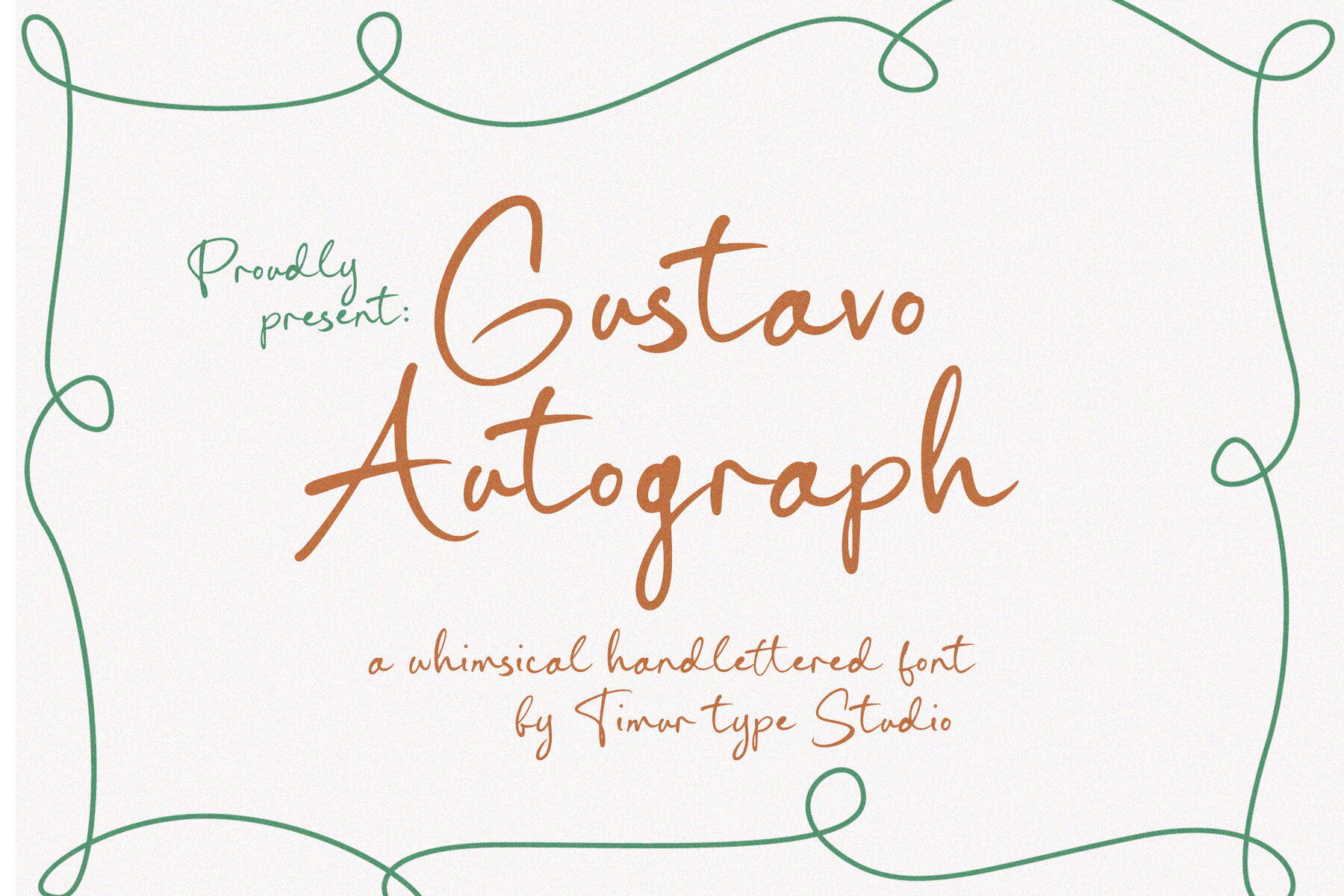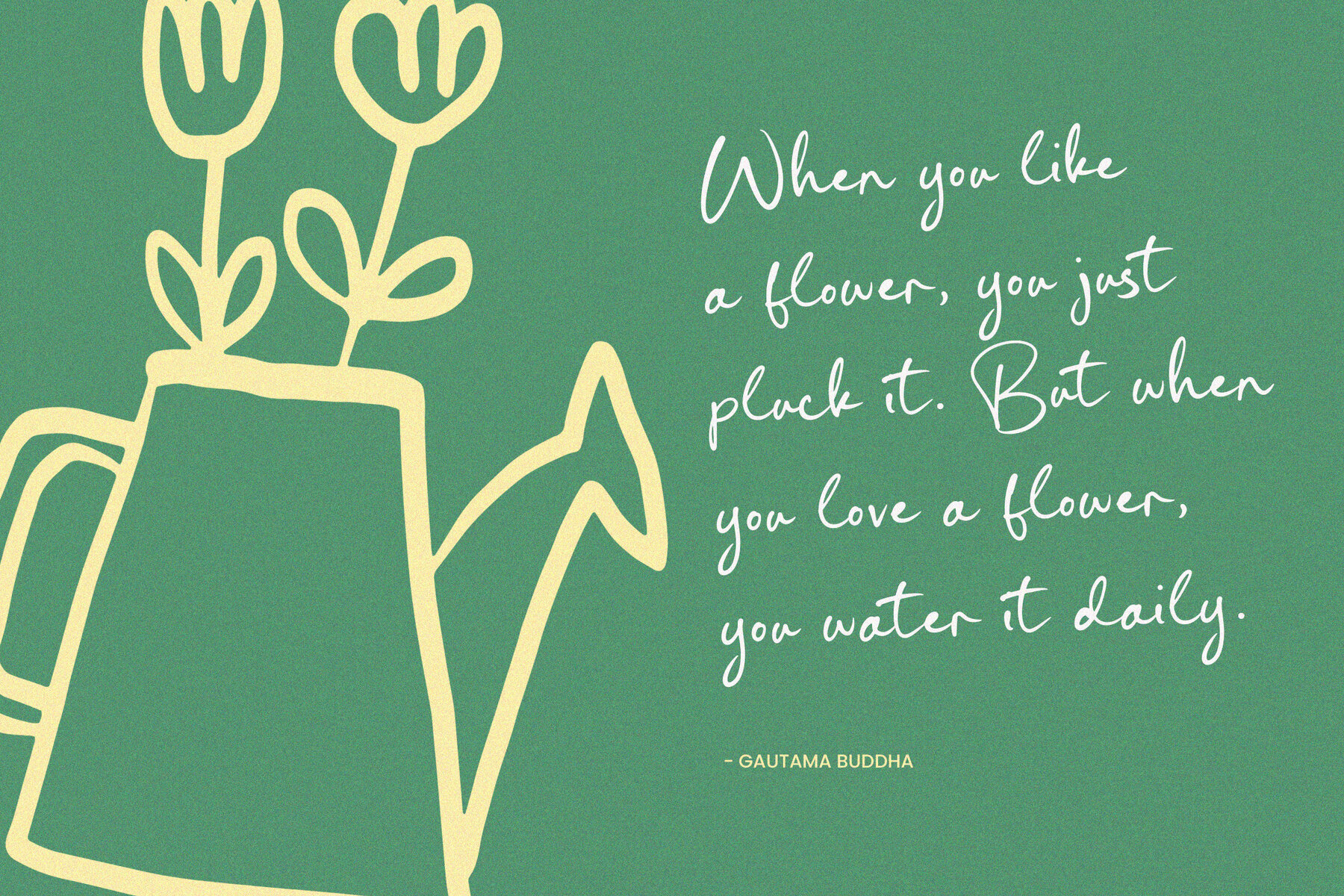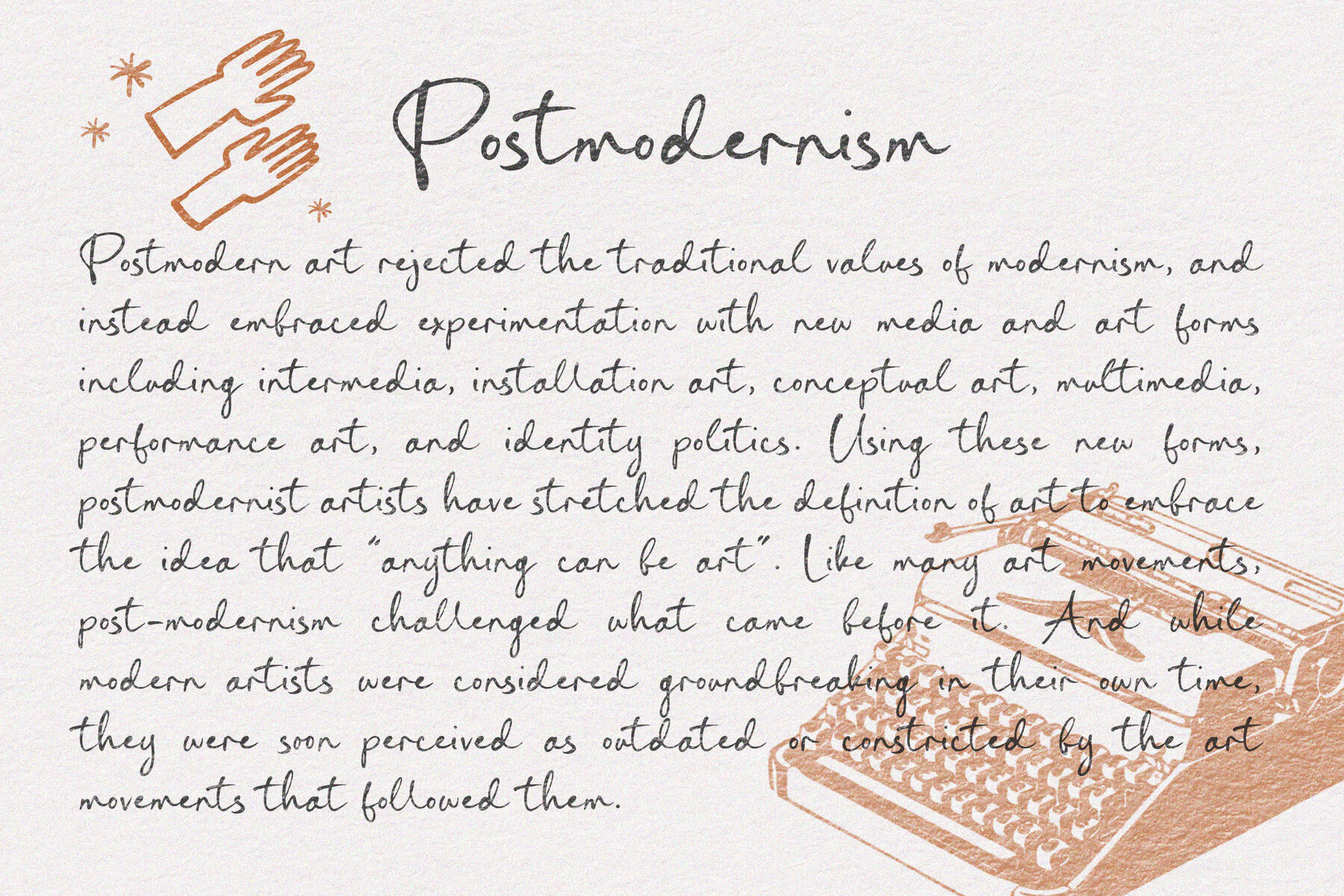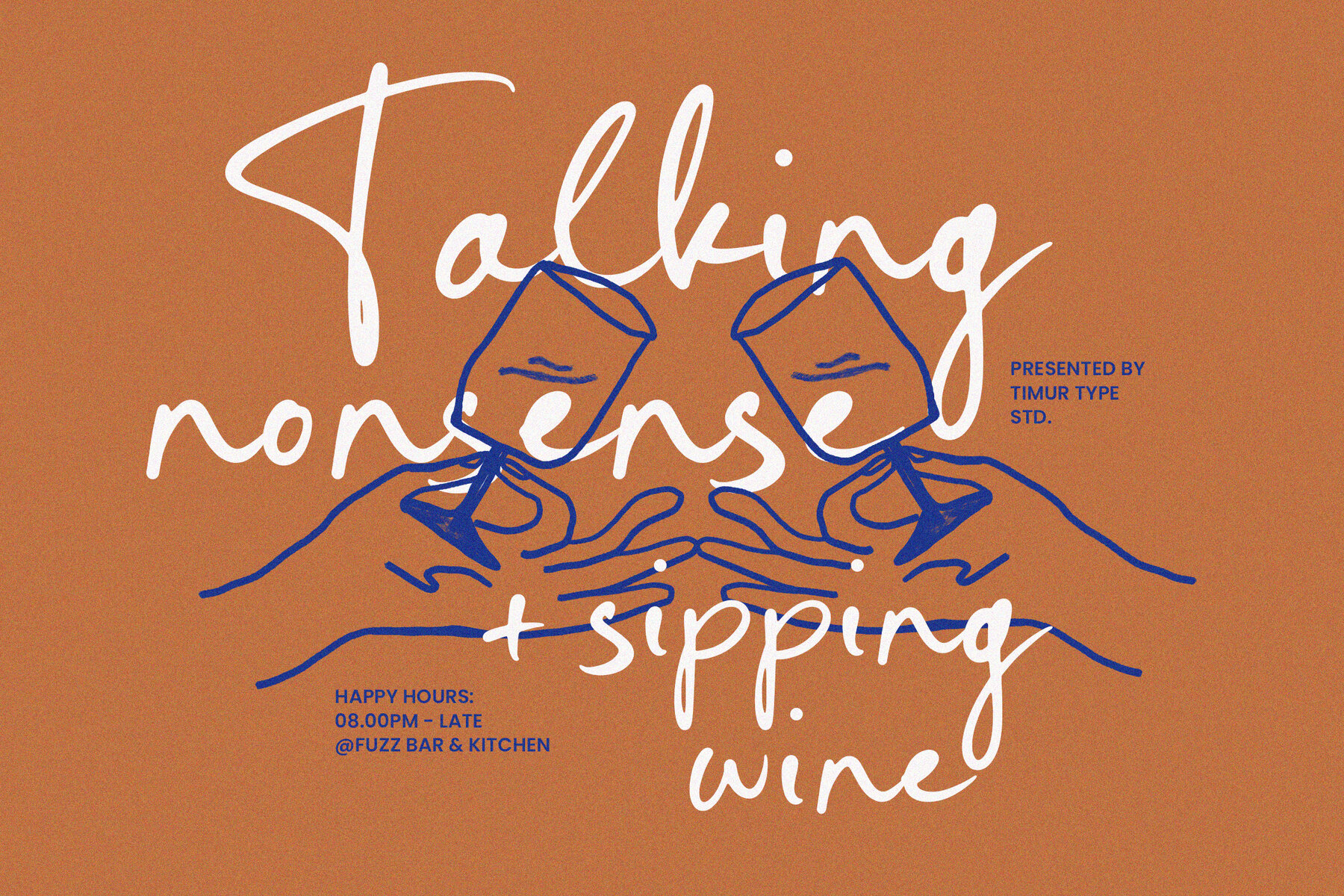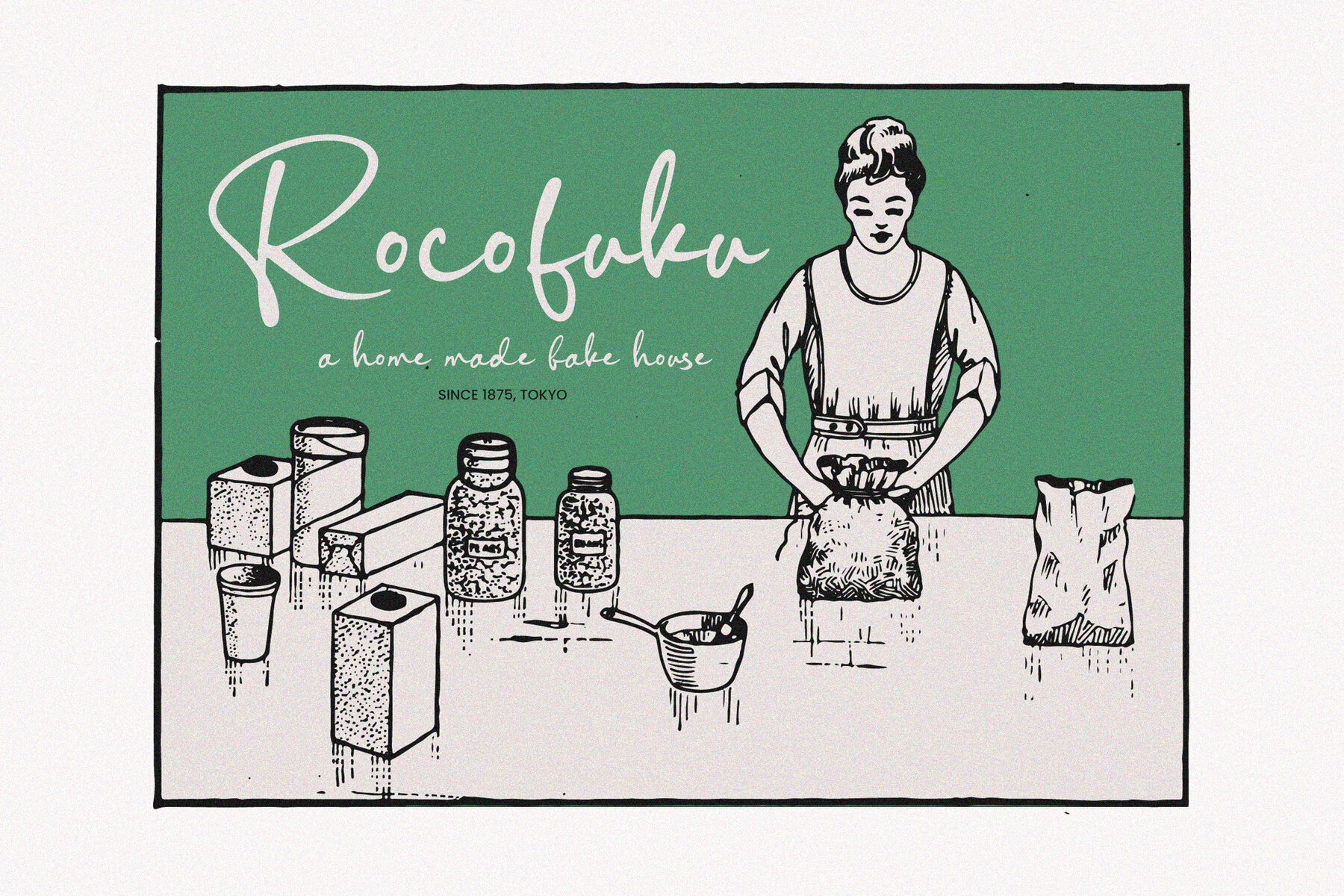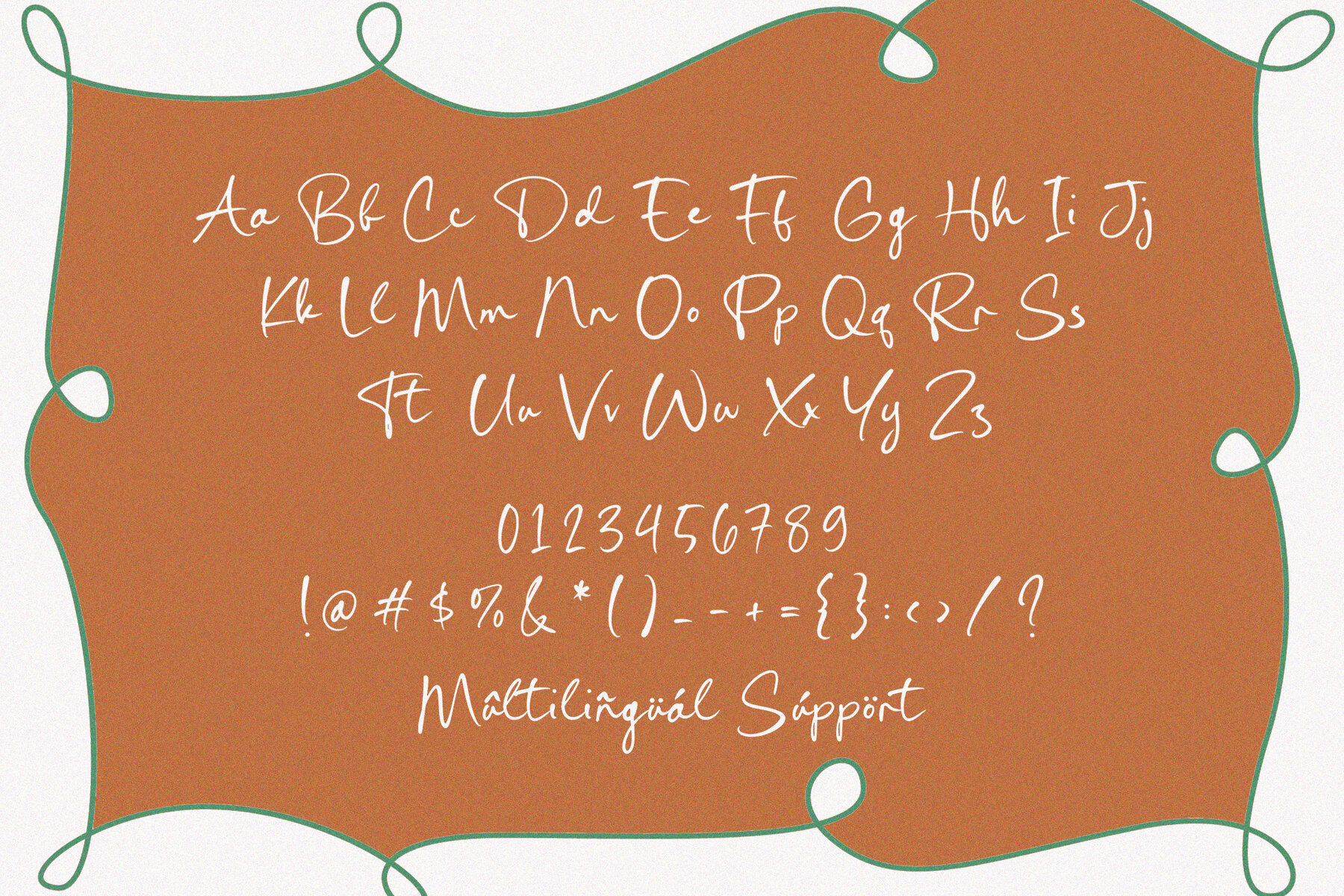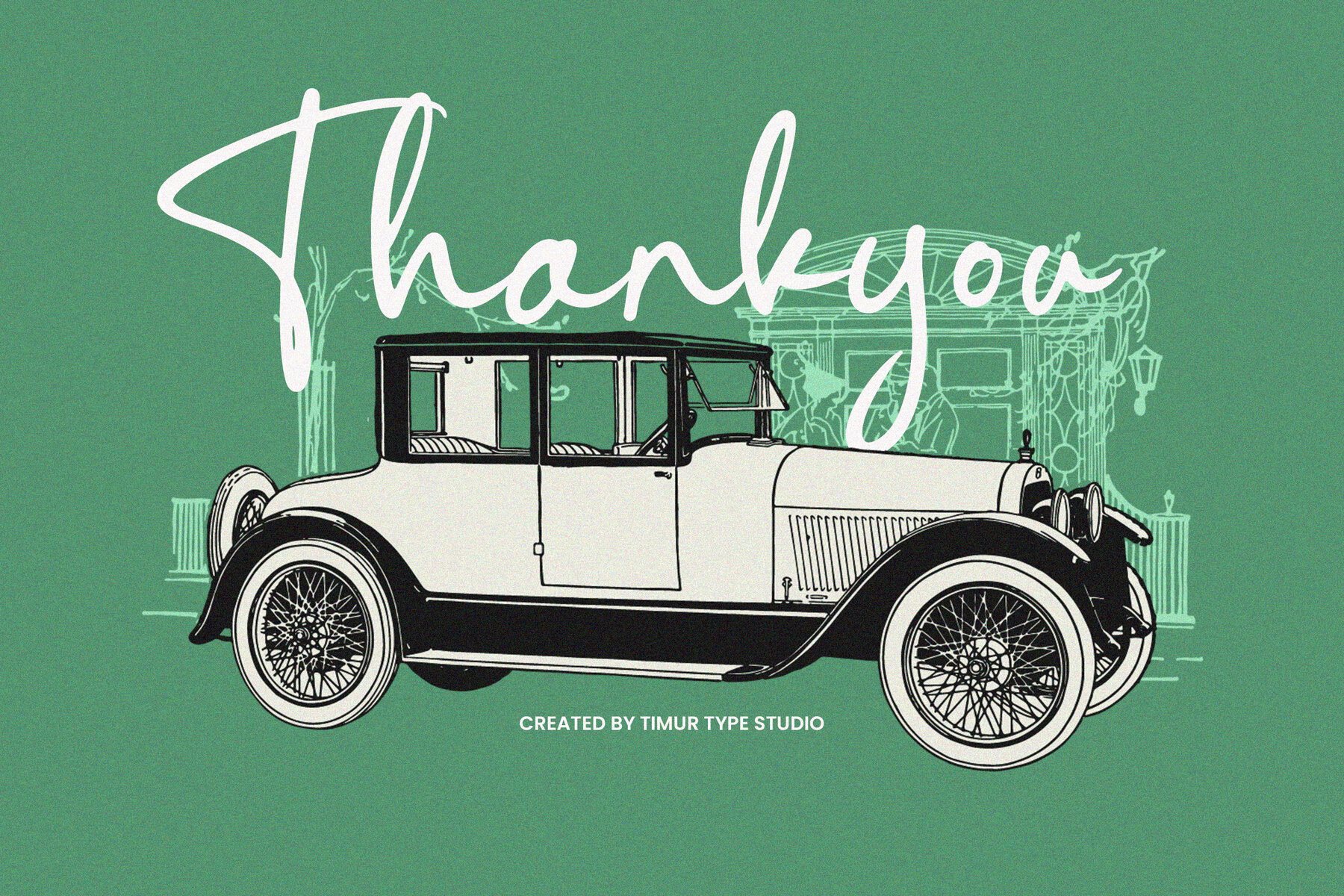
Gustavo Autograph Font
Gustavo Autograph
Gustavo Autograph is a whimsical and enchanting hand-lettered font that radiates personality and charm. Its playful, irregular letterforms embody carefree creativity and individuality, making it an excellent choice for projects requiring a magical touch. Whether designing greeting cards, posters, or children's book covers, this font adds a sense of wonder and whimsy to any creation.
Perfect for those looking to infuse their projects with unique and captivating character, Gustavo Autograph provides an imaginative flair that distinguishes your designs. Its quirky charm inspires creativity and invites the viewer to experience the delightful world of your work. This font is an ideal asset for designers aiming to impart a sense of personality and individuality in their creative endeavors.